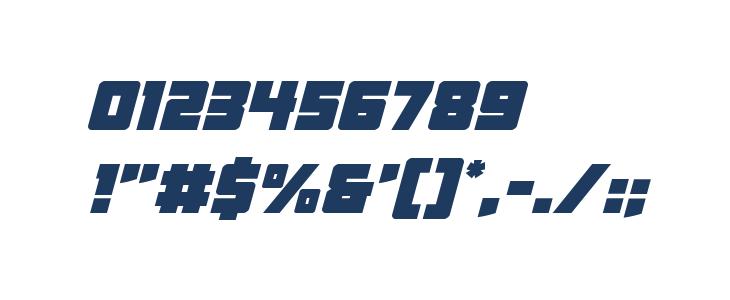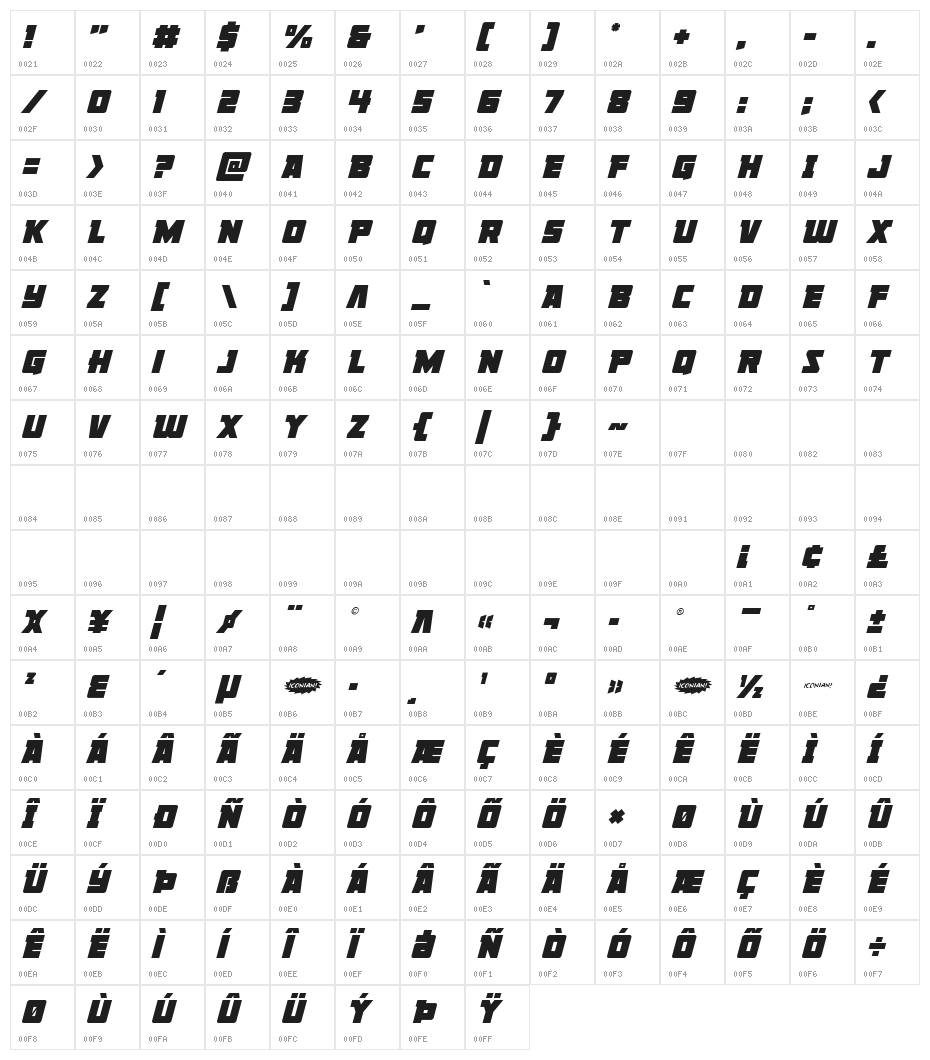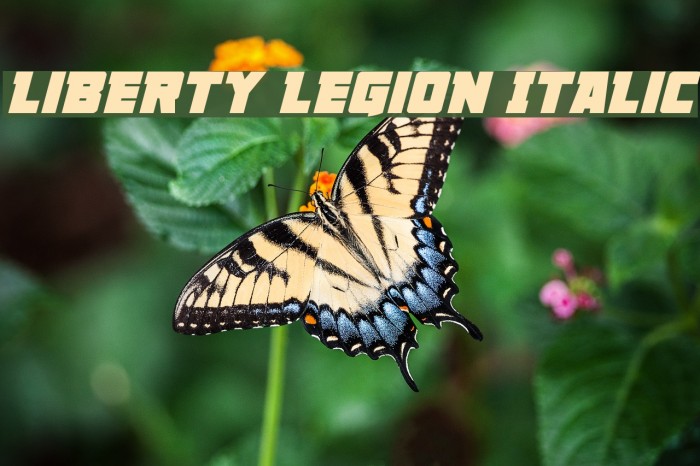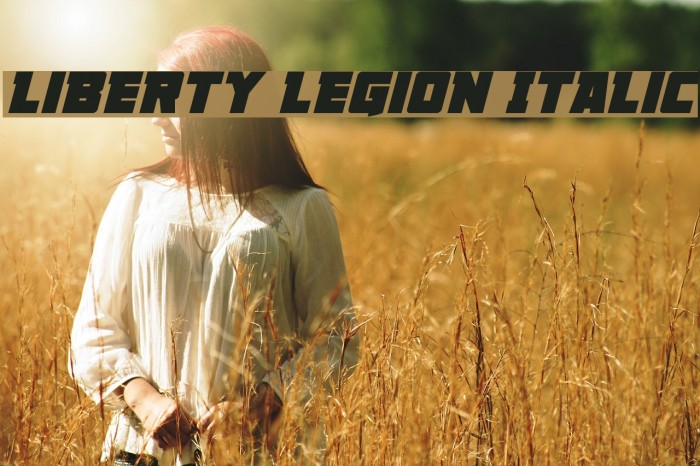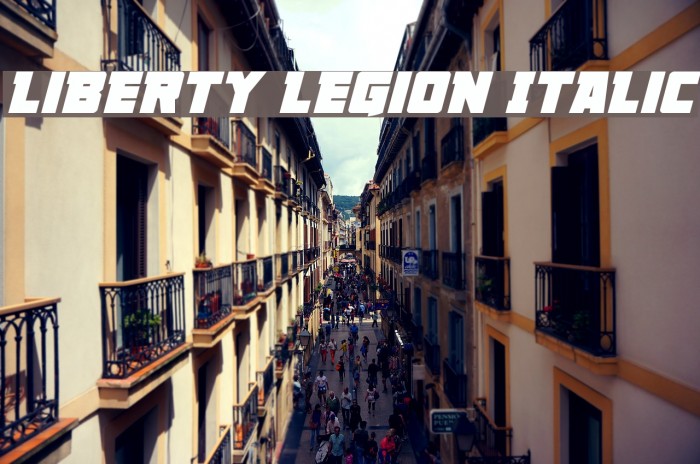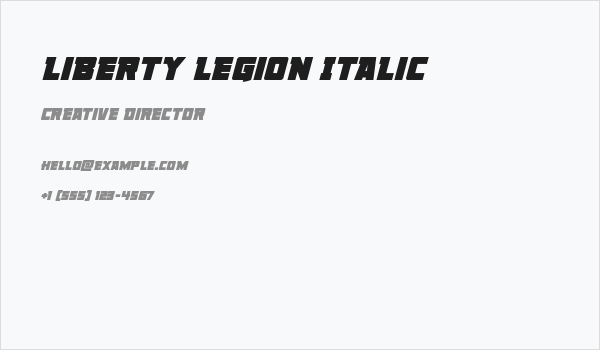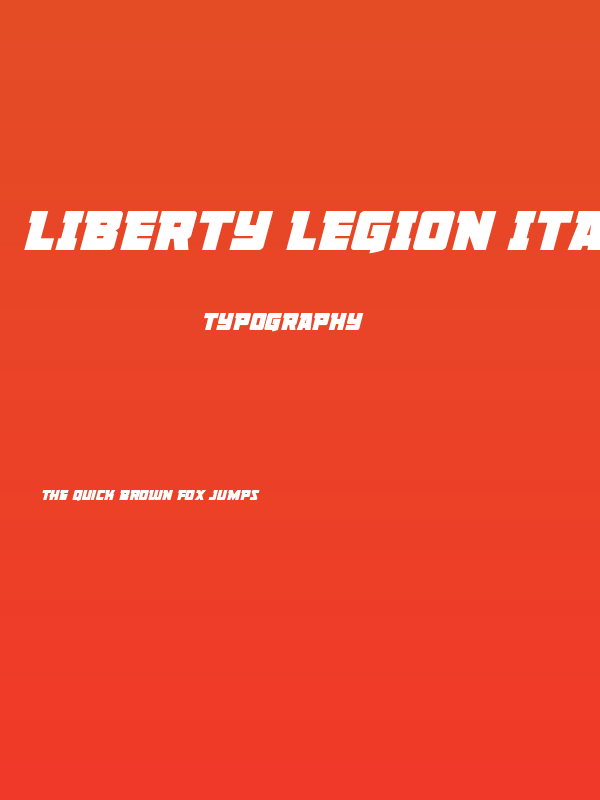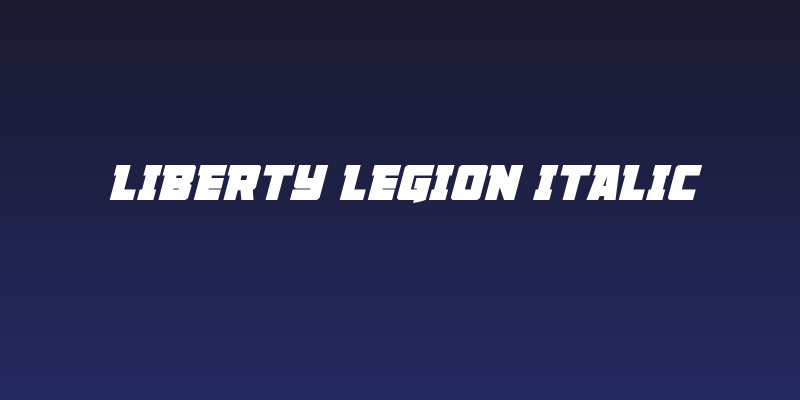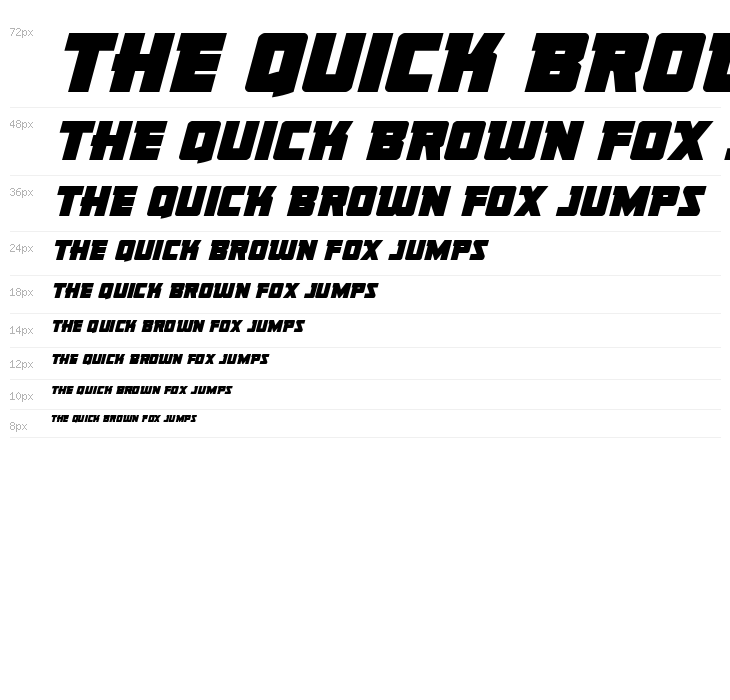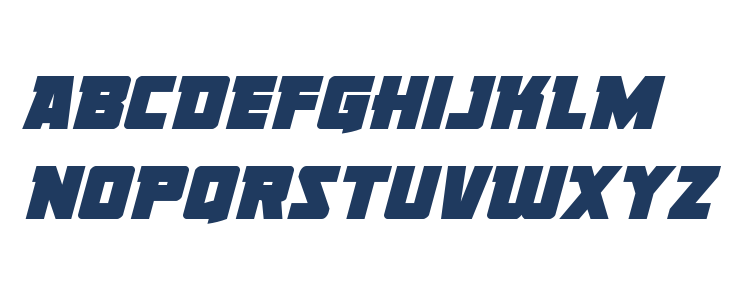
Liberty Legion Italic Font
Liberty Legion Italic Description
This font features a bold and dynamic style with a strong italic slant, giving it a sense of movement and energy. The characters are robust and angular, with sharp edges and a geometric structure that conveys a modern and futuristic feel. The uppercase and lowercase letters maintain a consistent weight, providing a cohesive look across the alphabet. The numbers and special characters are designed with the same boldness and angularity, ensuring uniformity throughout the typeface. The font's distinct style makes it suitable for impactful and attention-grabbing designs.